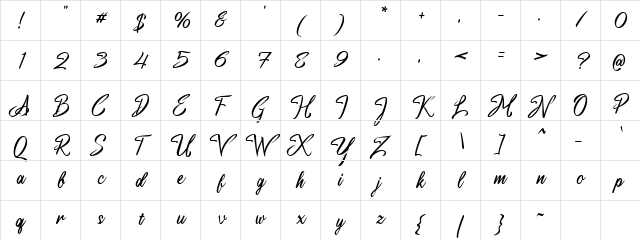
a Antara Distance Standard Free Font
a Antara Distance Standard
Designer: Wahyu Eka Prasetya
Design Context for a Antara Distance
a Antara Distance is a composed and adaptable typeface that performs quietly and consistently across a wide range of design contexts.